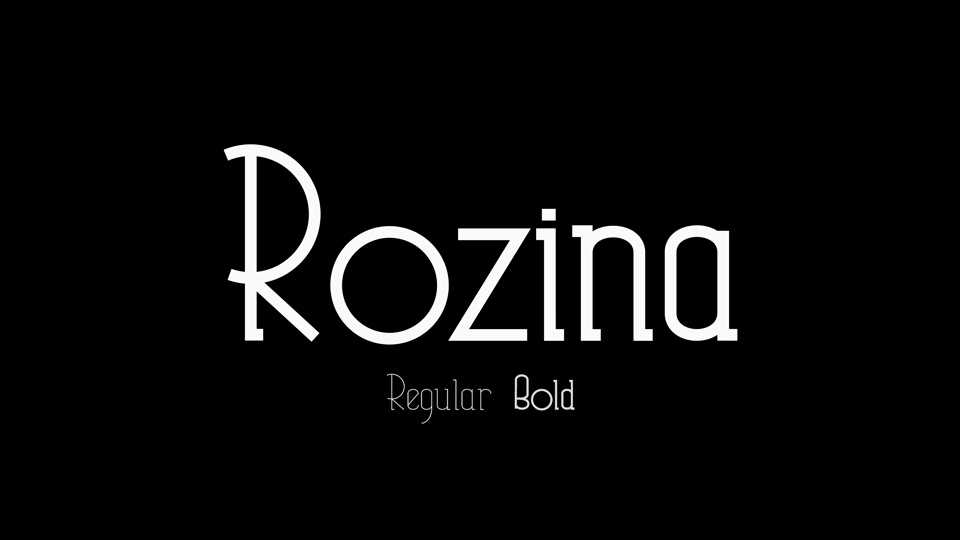
Download Rozina typeface, a slab serif font family with two styles that was invented for the girl band Rózinky. Rozina should be elegant, but at the same time a little wild.
Designer: Jiří Miškeřík